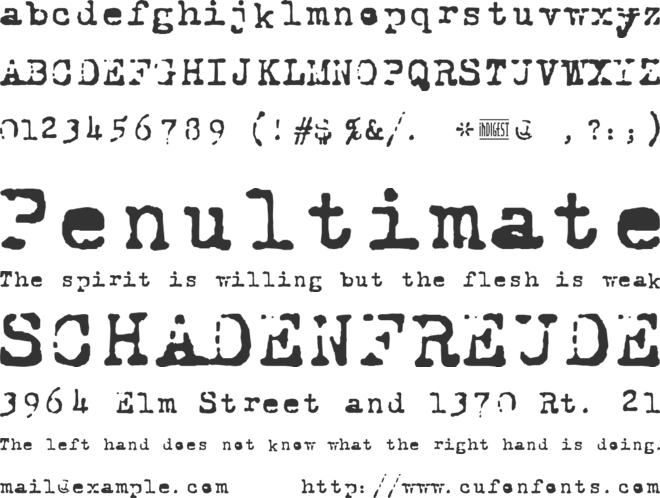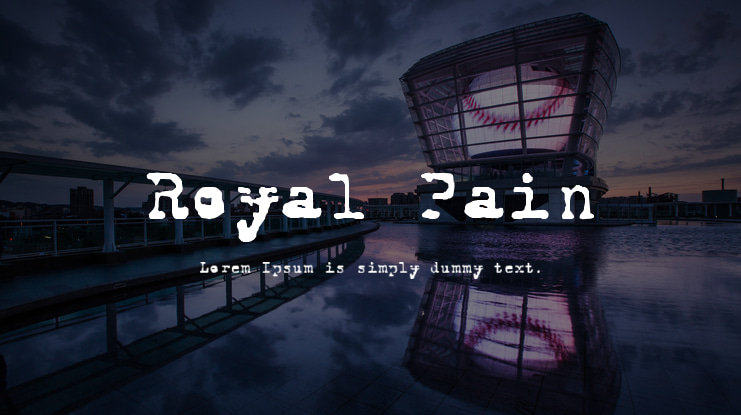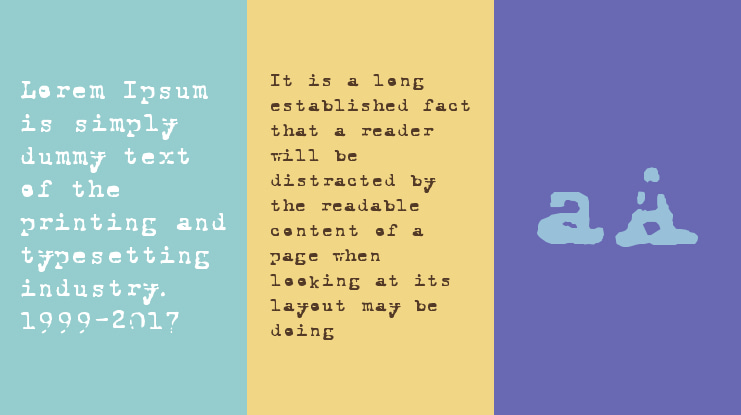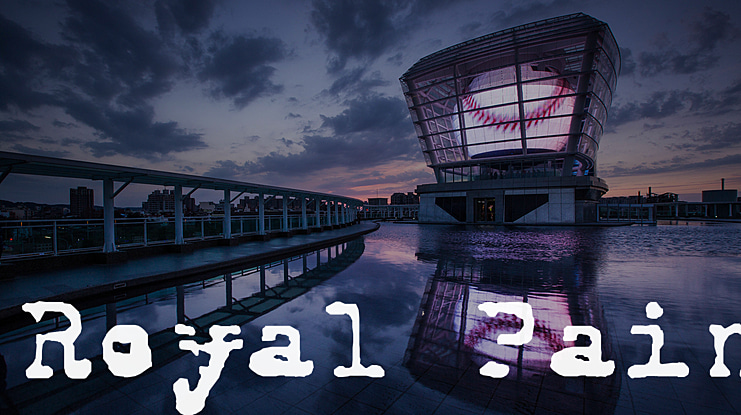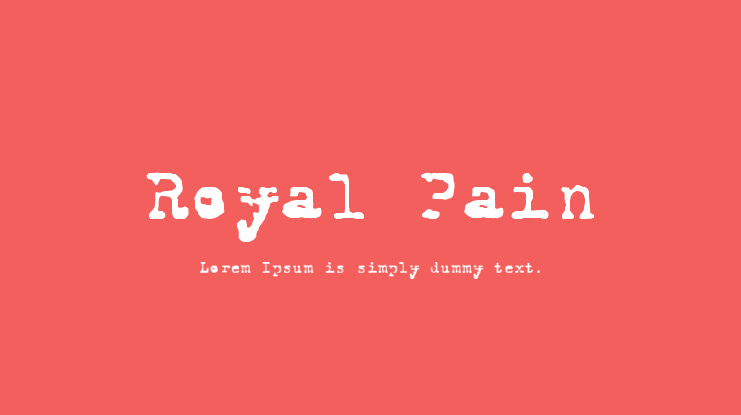
Royal Pain Font
Based on the typeface of an old Royal brand typewriter I bought at a garage sale for 50 cents. InDigest AvantFonts / PO Box 480 / Denville NJ 07834-0480. Email: . Copyright 1994 Jeff Rentsch. All rights reserved.